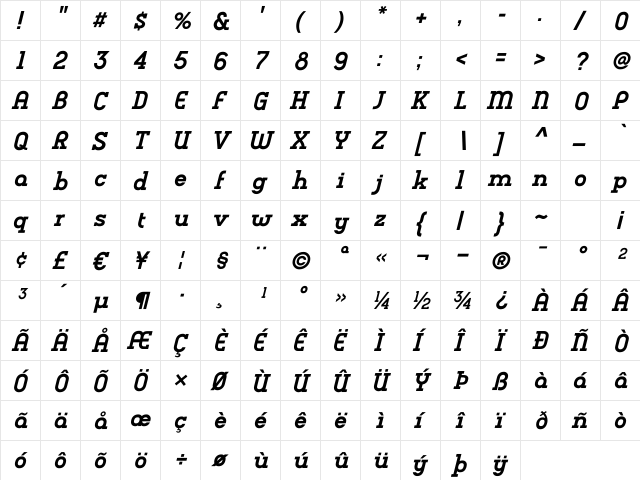
Charifa SerifBold Oblique Regular Font Preview
Design Context for Charifa SerifBold Oblique Typeface
Charifa SerifBold Oblique brings classic typographic sensibility to the table — its serifs and measured letterforms reflect centuries of print heritage. Its italic angle brings a sense of urgency and motion to the letterforms. Its bold stroke weight gives it real presence on the page.